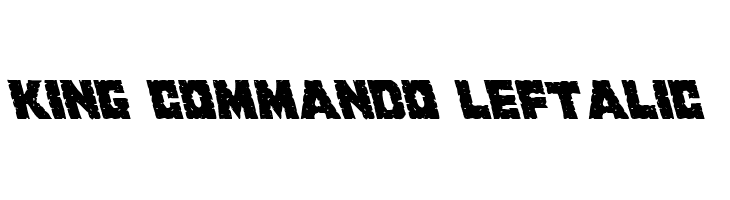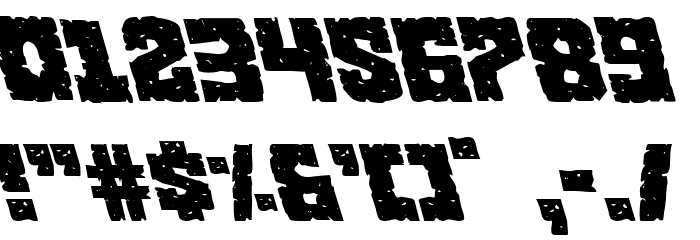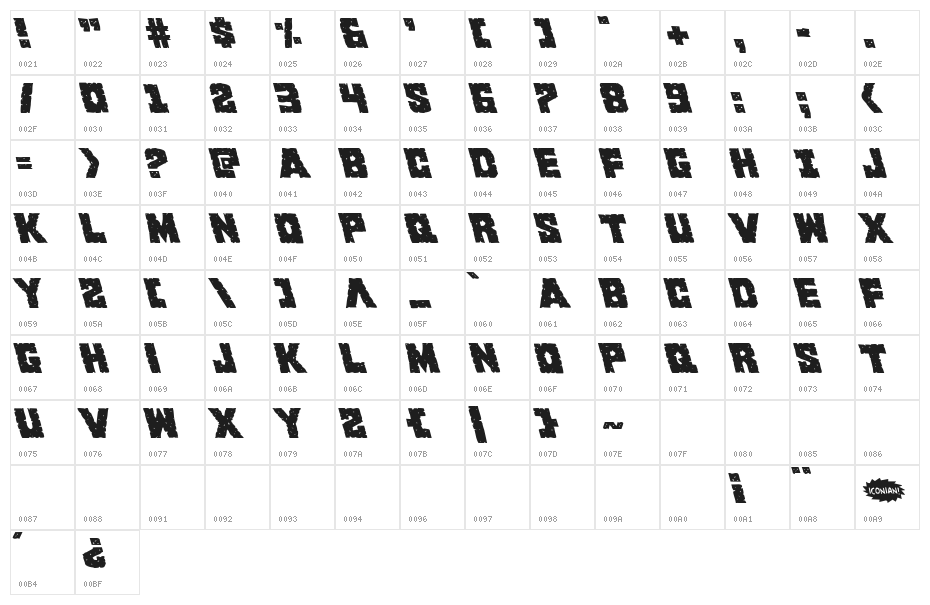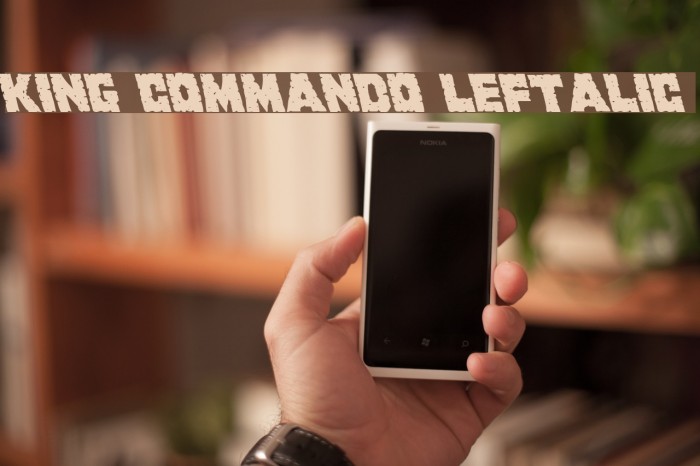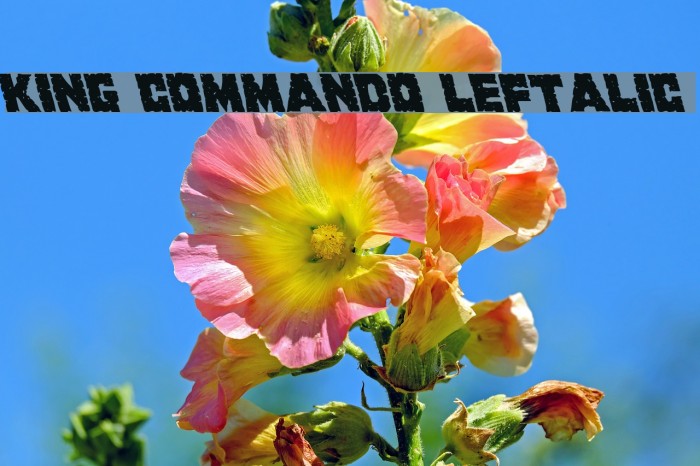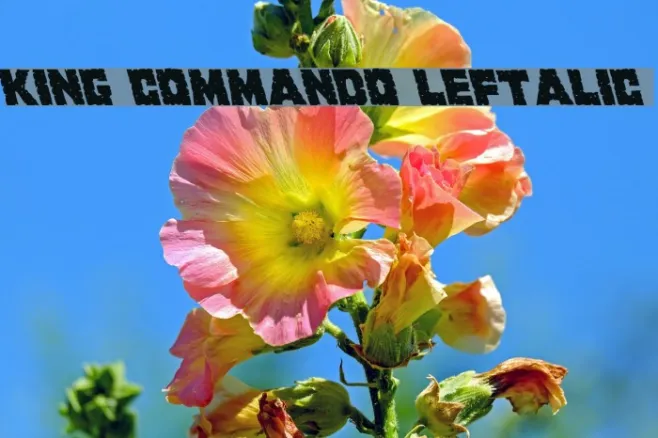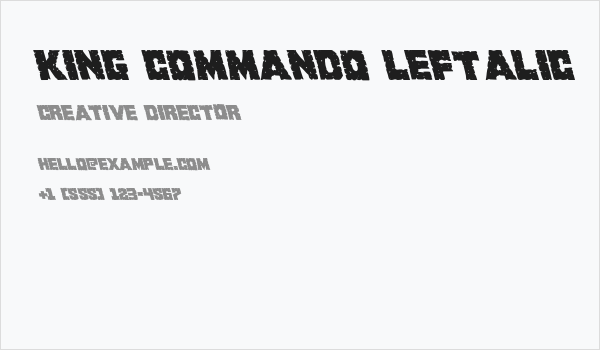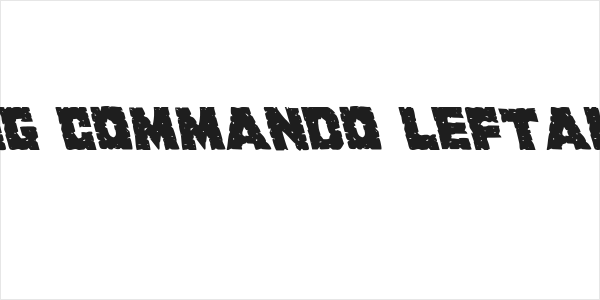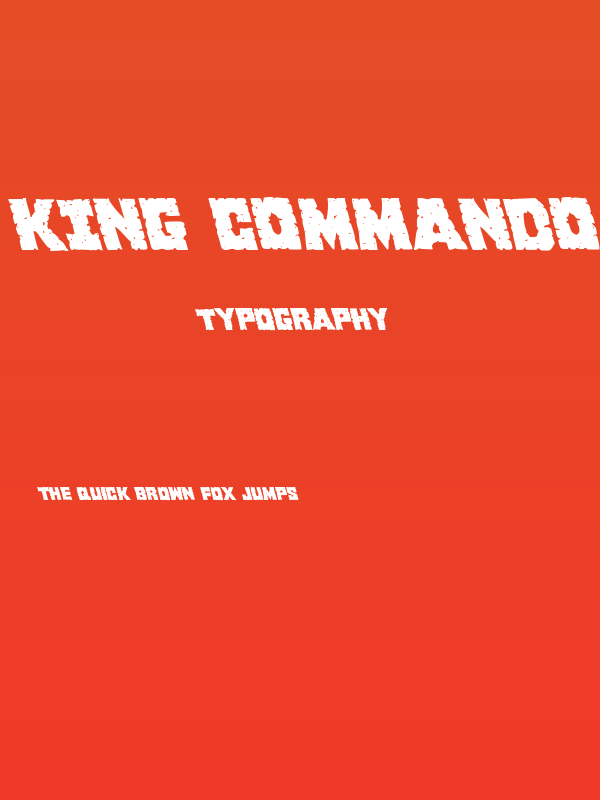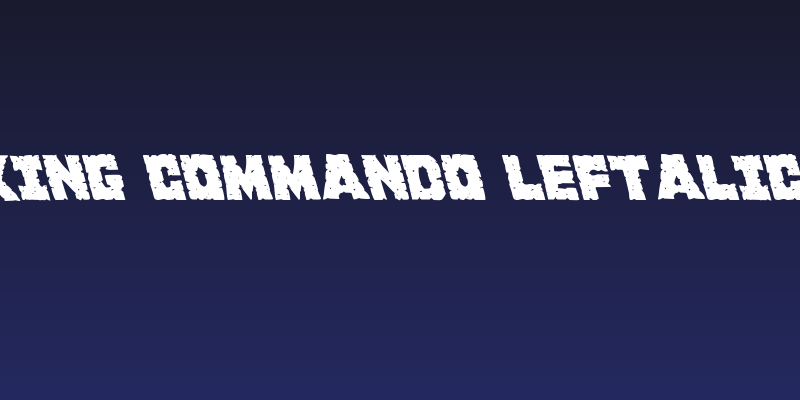
King Commando Leftalic Font
King Commando Leftalic Description
This font features a bold, rugged style with a distressed texture that gives it a gritty, military-inspired appearance. The characters are blocky and robust, with a consistent thickness throughout, enhancing its strong and commanding presence. The texture appears as if the letters have been weathered or eroded, adding to its rugged charm. The slanted orientation suggests a sense of movement or urgency, making it suitable for dynamic and impactful designs. The font's uppercase and lowercase letters maintain a uniform width, contributing to a cohesive and structured look.
| Proposed Projects | Ideal for use in posters, video game graphics, military-themed designs, and branding that requires a strong, impactful presence. |